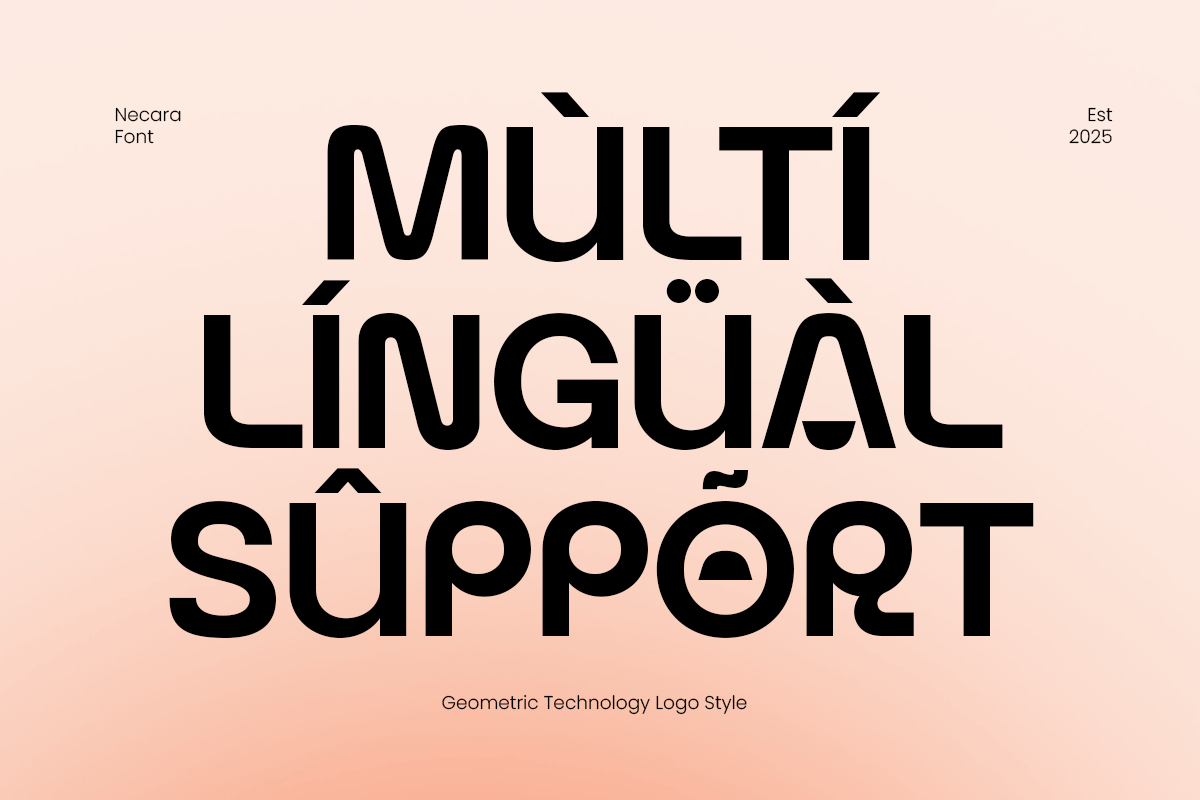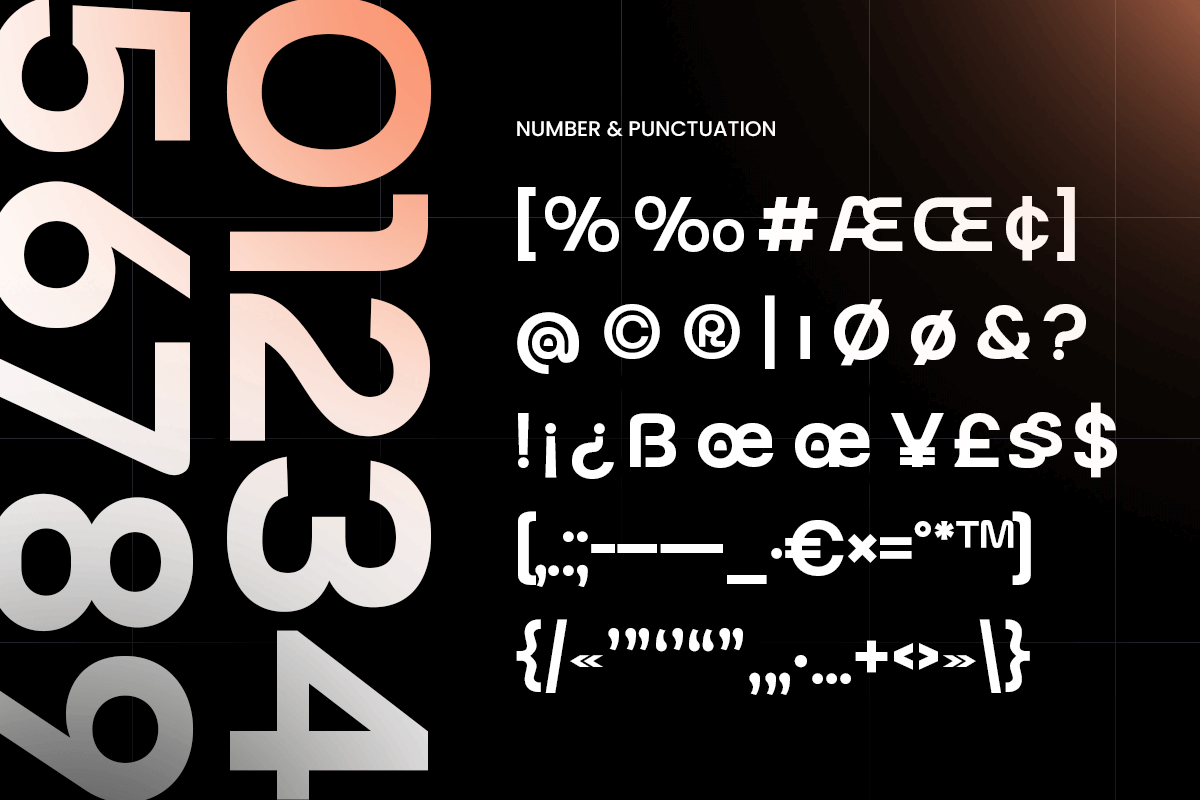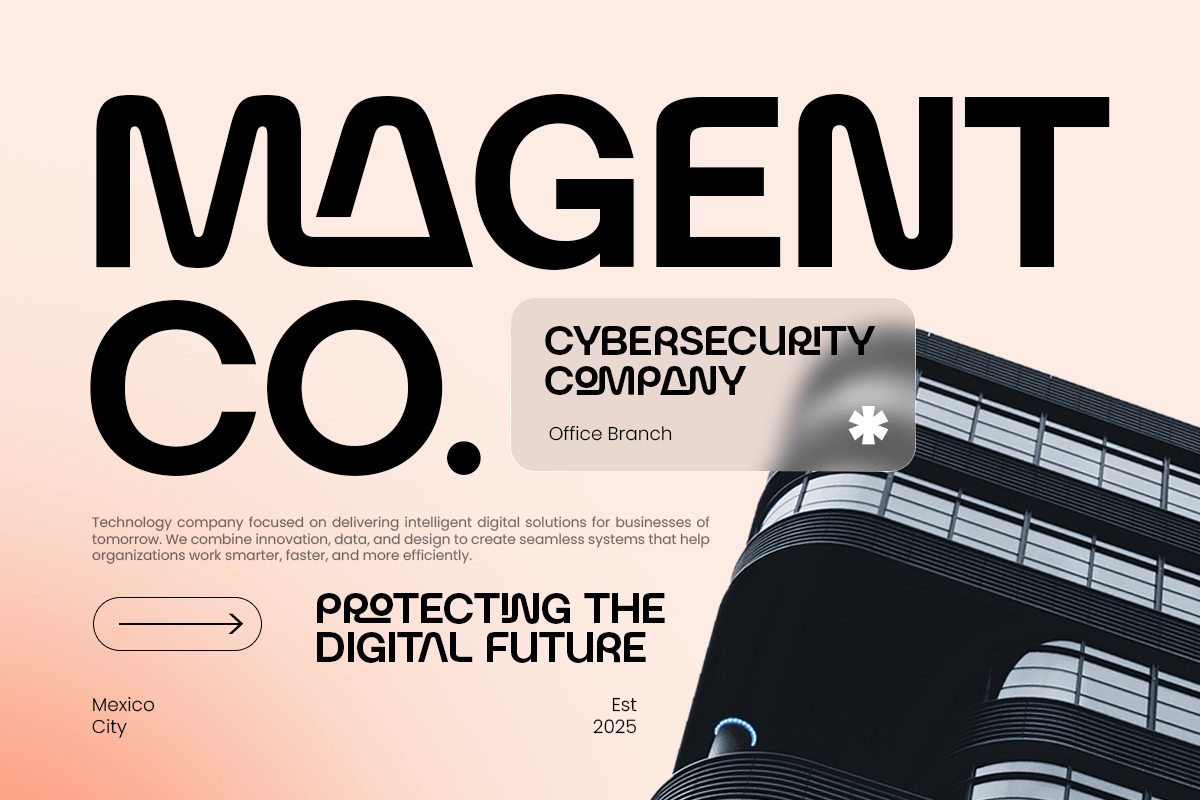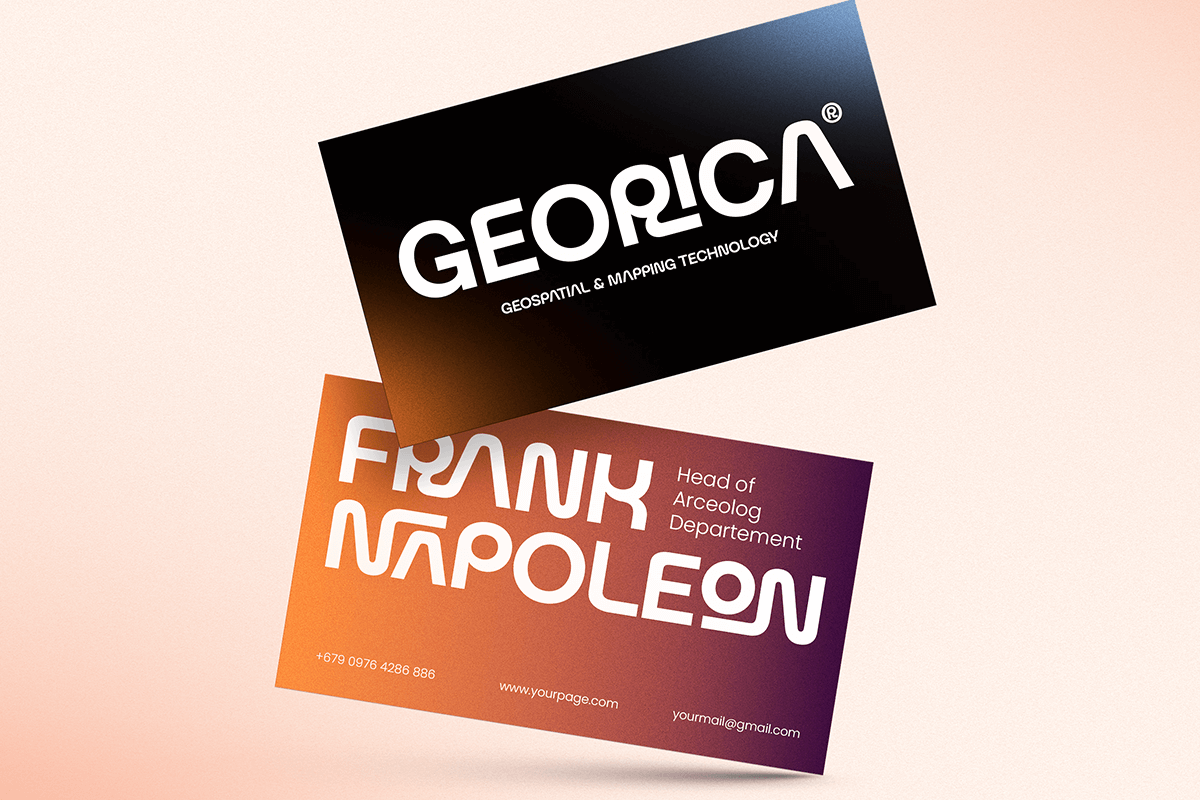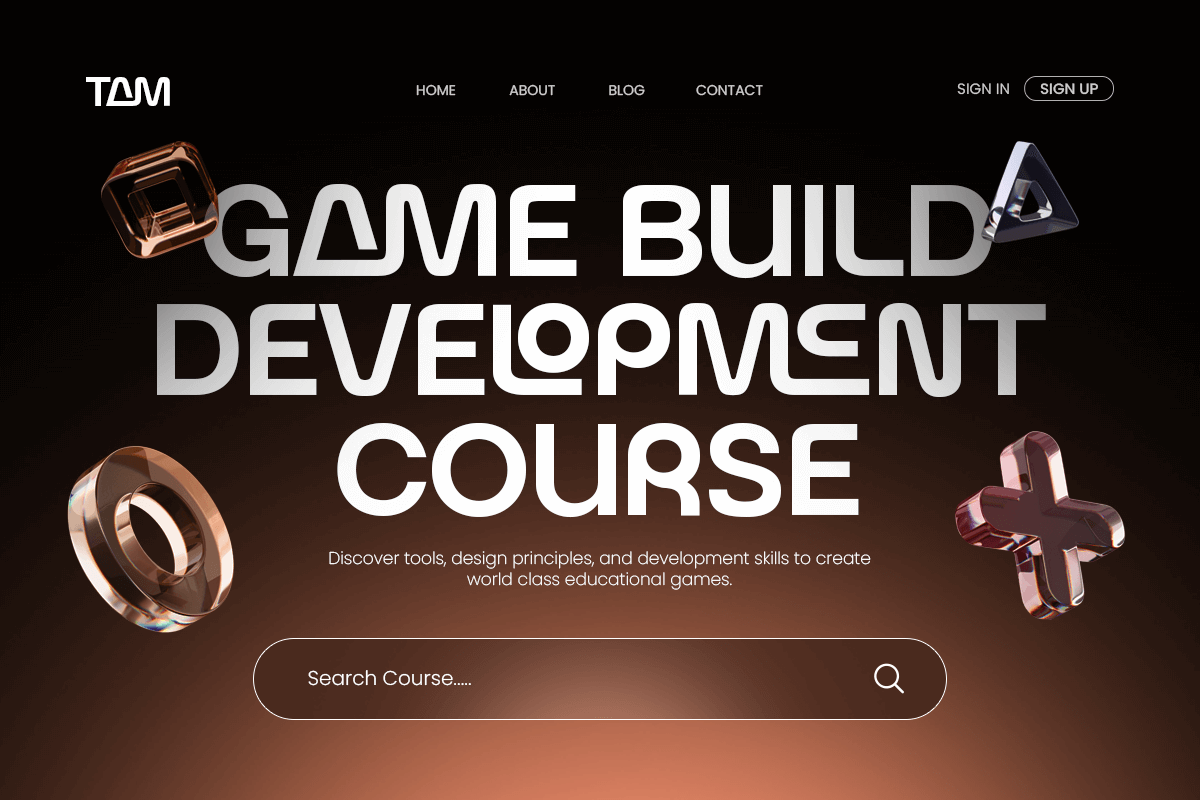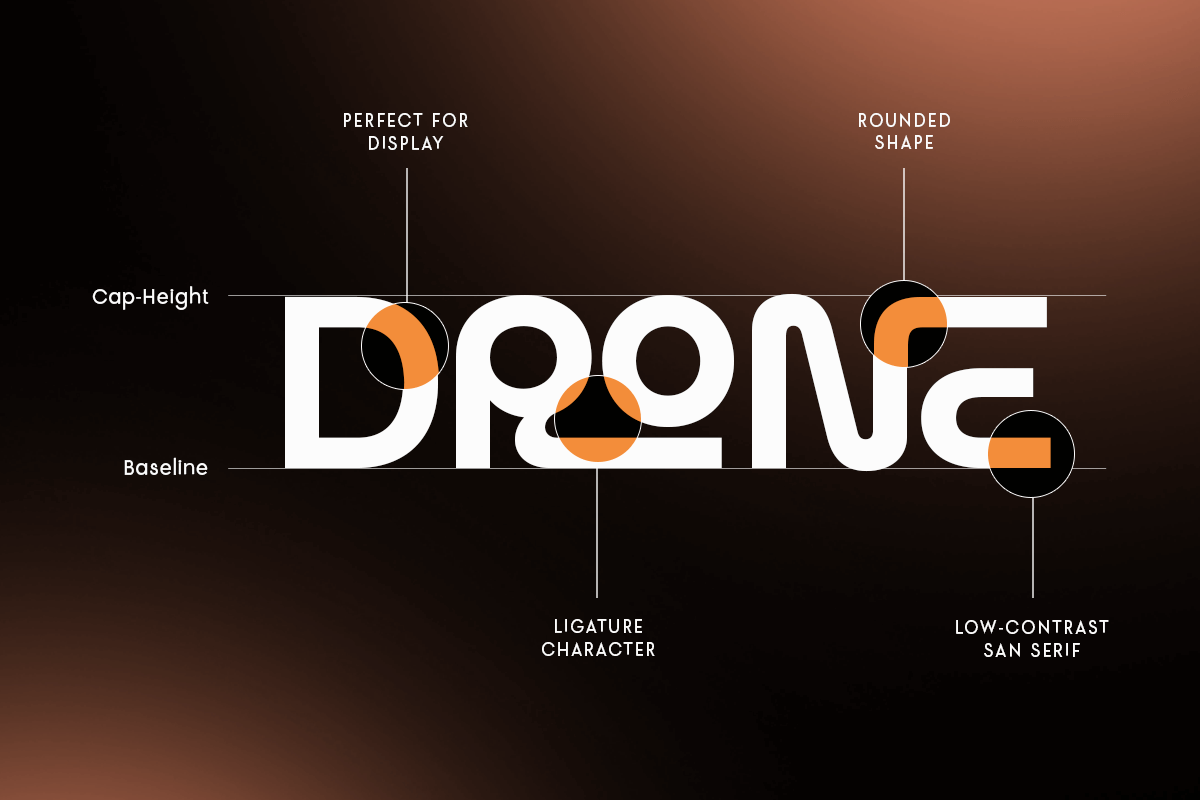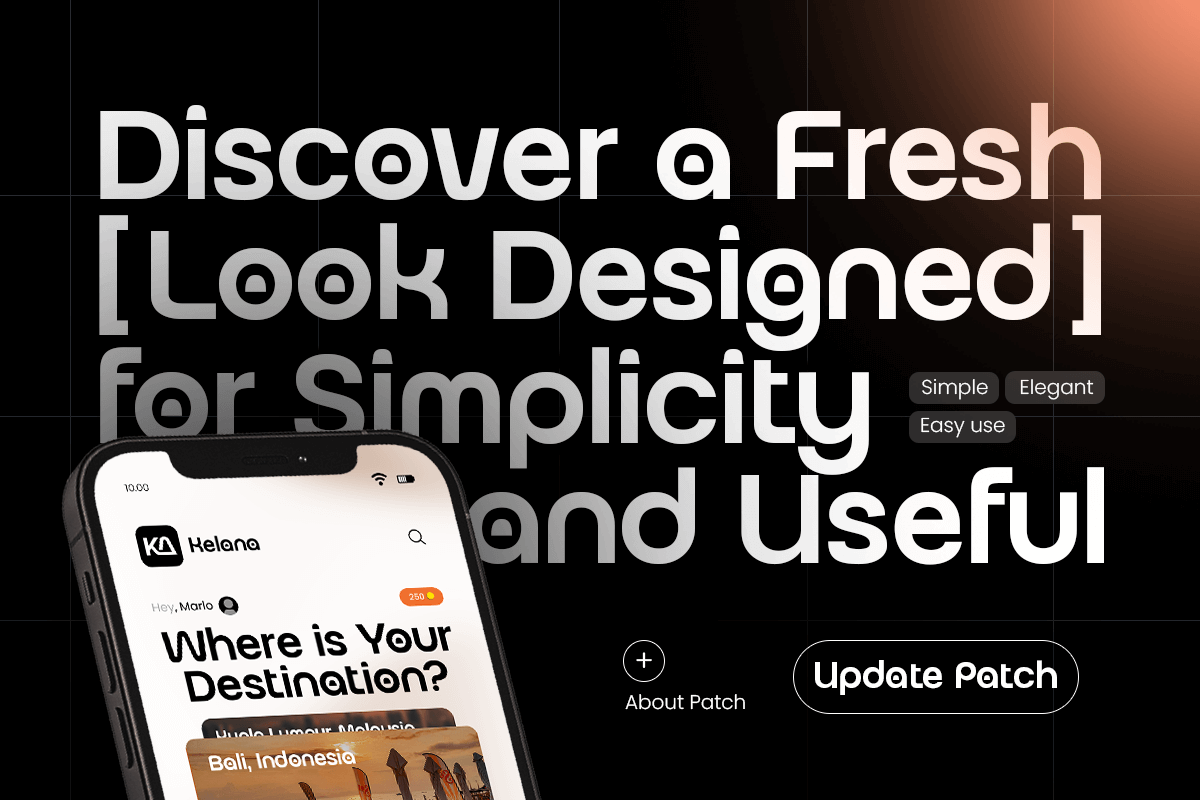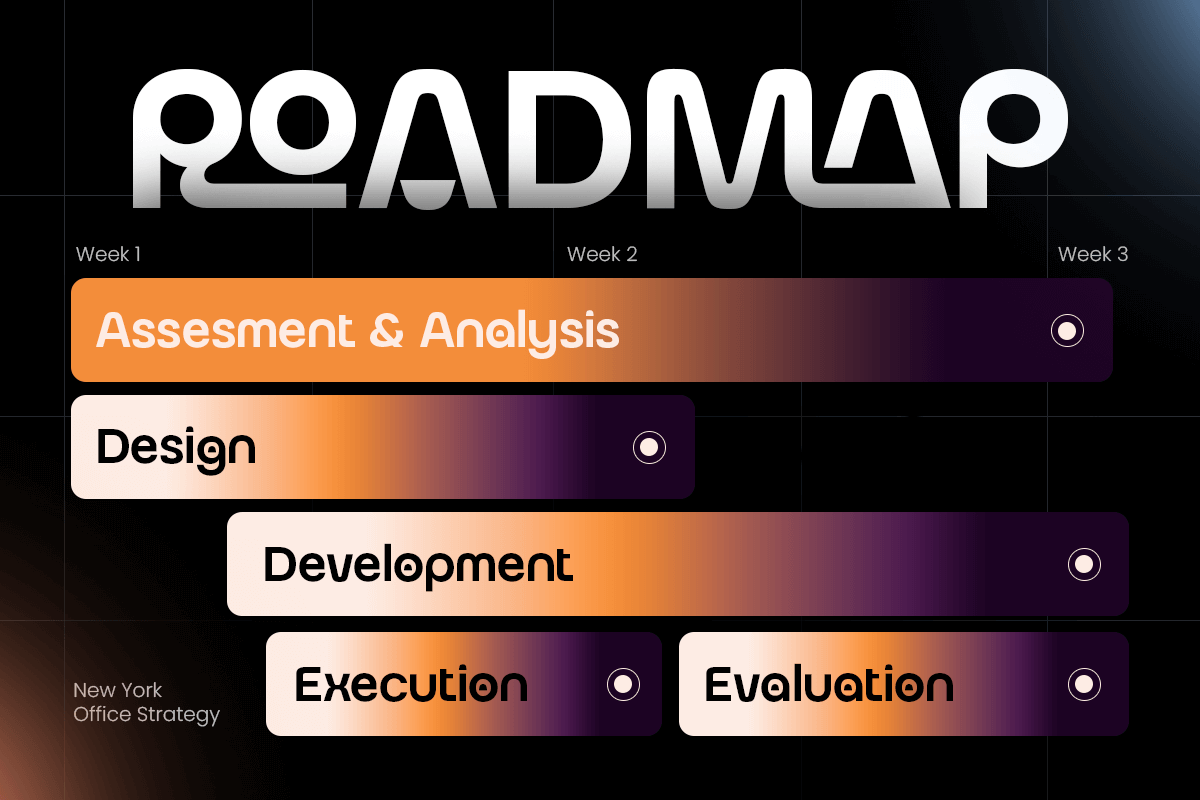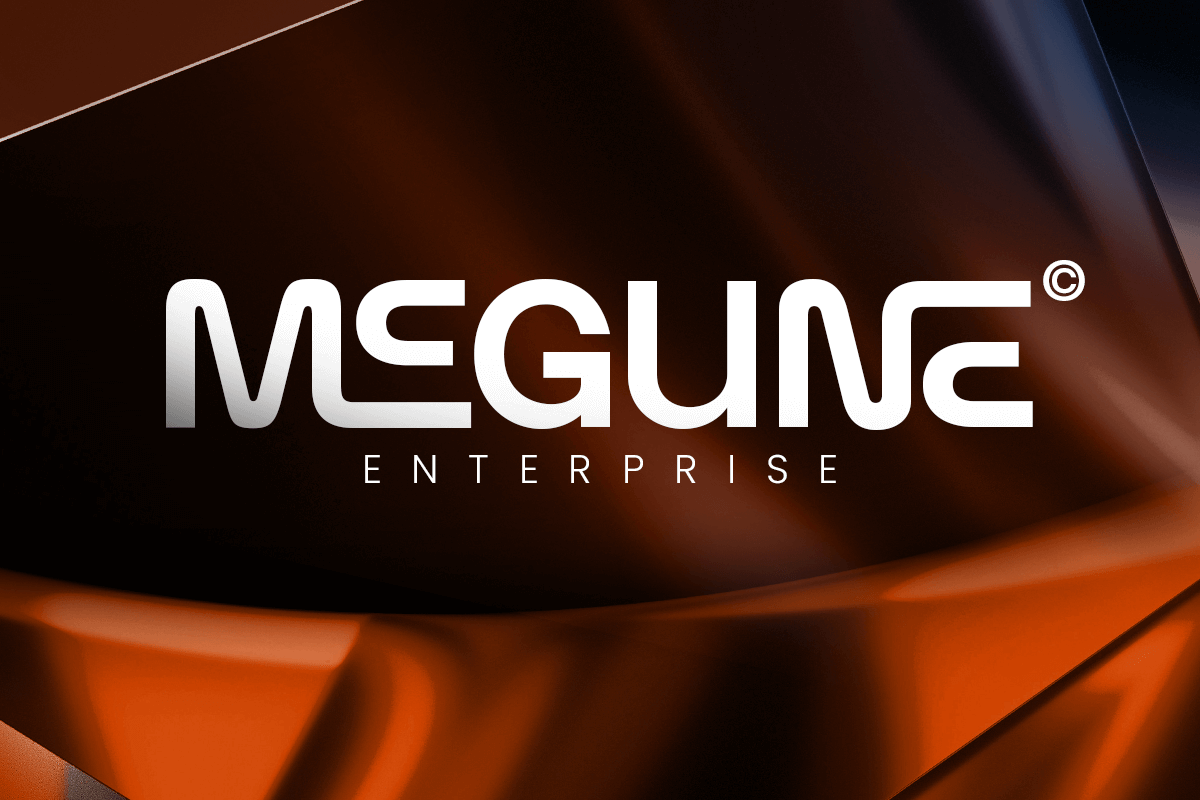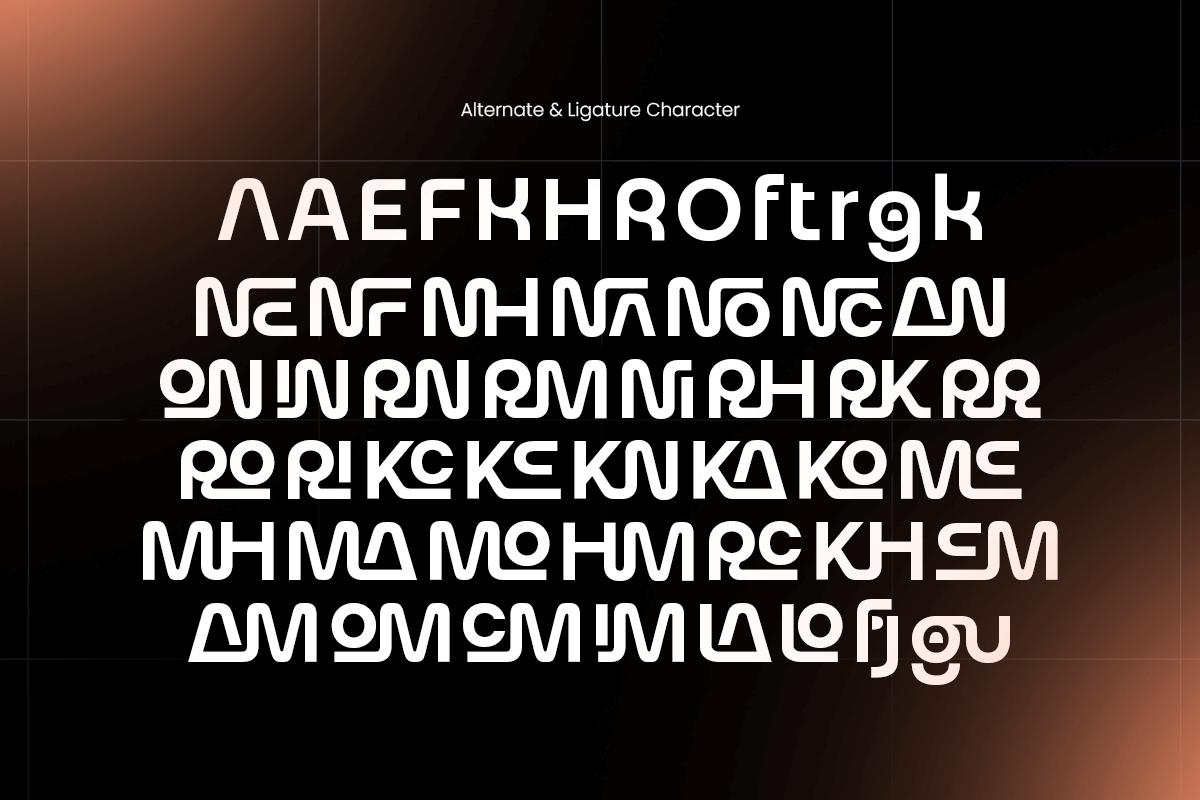
Necara - Geometric Technology Font
Necara – Geometrics Technology Logo Font
Necara is a sleek and futuristic geometric logo font crafted for technology, innovation, and modern branding. With its sharp edges, clean proportions, and minimalist design, Necara delivers a professional and high-tech aesthetic that perfectly fits digital companies, startups, and creative brands.
Built to reflect innovation and precision, Necara blends geometric construction with smooth readability, making it ideal for logos, product packaging, app design, and tech presentations. Every letter is designed with balance and purpose, giving your brand identity a smart, modern, and timeless look.
Necara – Geometrics Technology Logo Font Features:
\* Modern geometric design with futuristic character shapes
\* Ideal for logos, tech branding, UI/UX, and product packaging
\* Includes uppercase, lowercase, numerals, and punctuation
\* Optimized kerning and OpenType features for flexible design
\* Perfect balance of innovation, clarity, and visual strength
Elevate your digital brand with Necara – the geometric technology font that defines modern design precision.